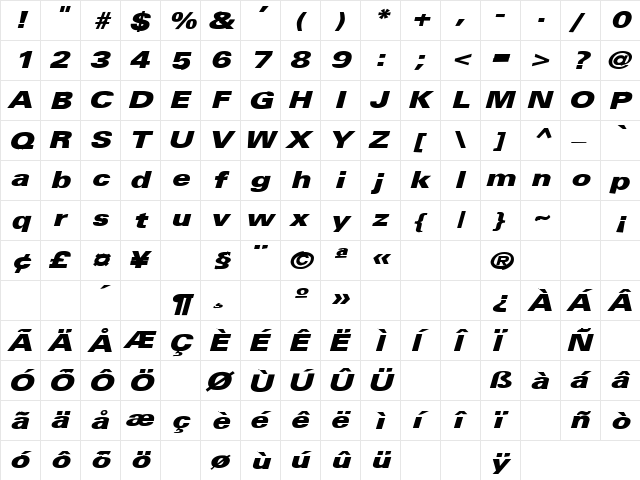
Black Dog 10 Regular Font Preview
Black Dog 10 Regular
Black Dog 10 Regular Font Details
Design Context for Black Dog 10 Typeface
Black Dog 10 is a composed and adaptable typeface that performs quietly and consistently across a wide range of design contexts.